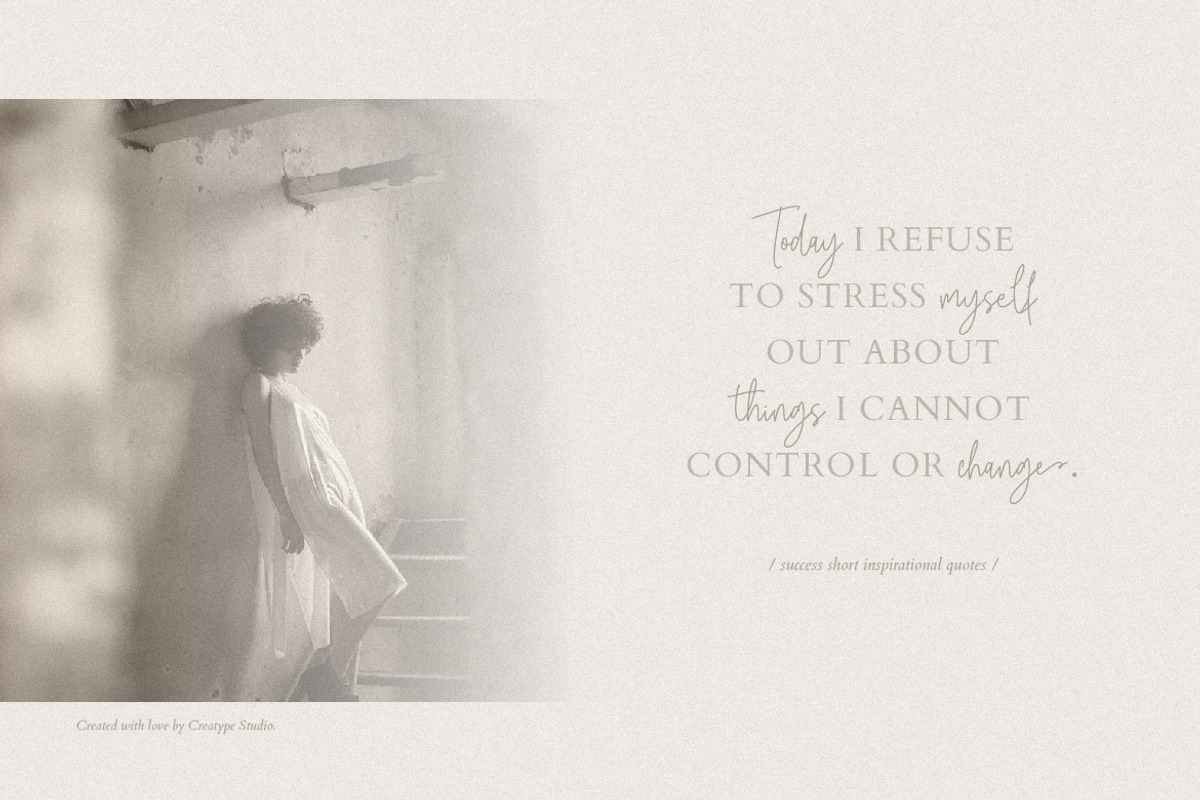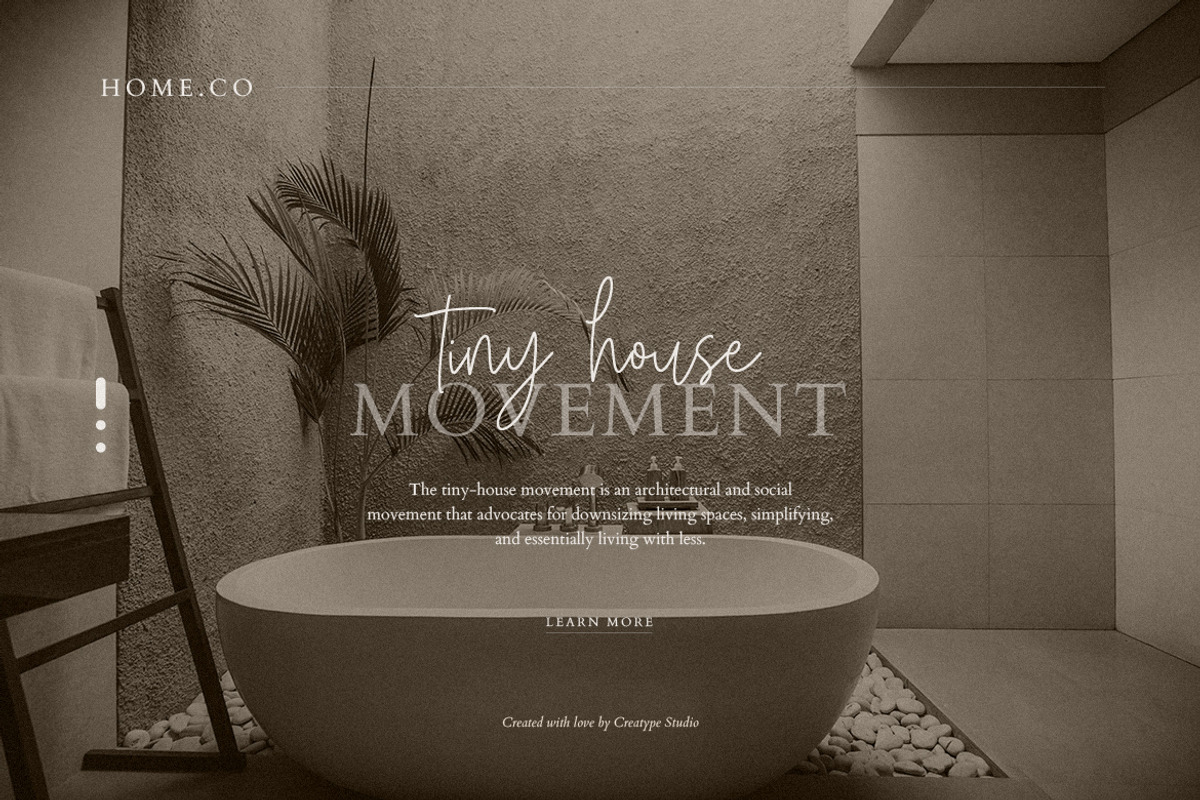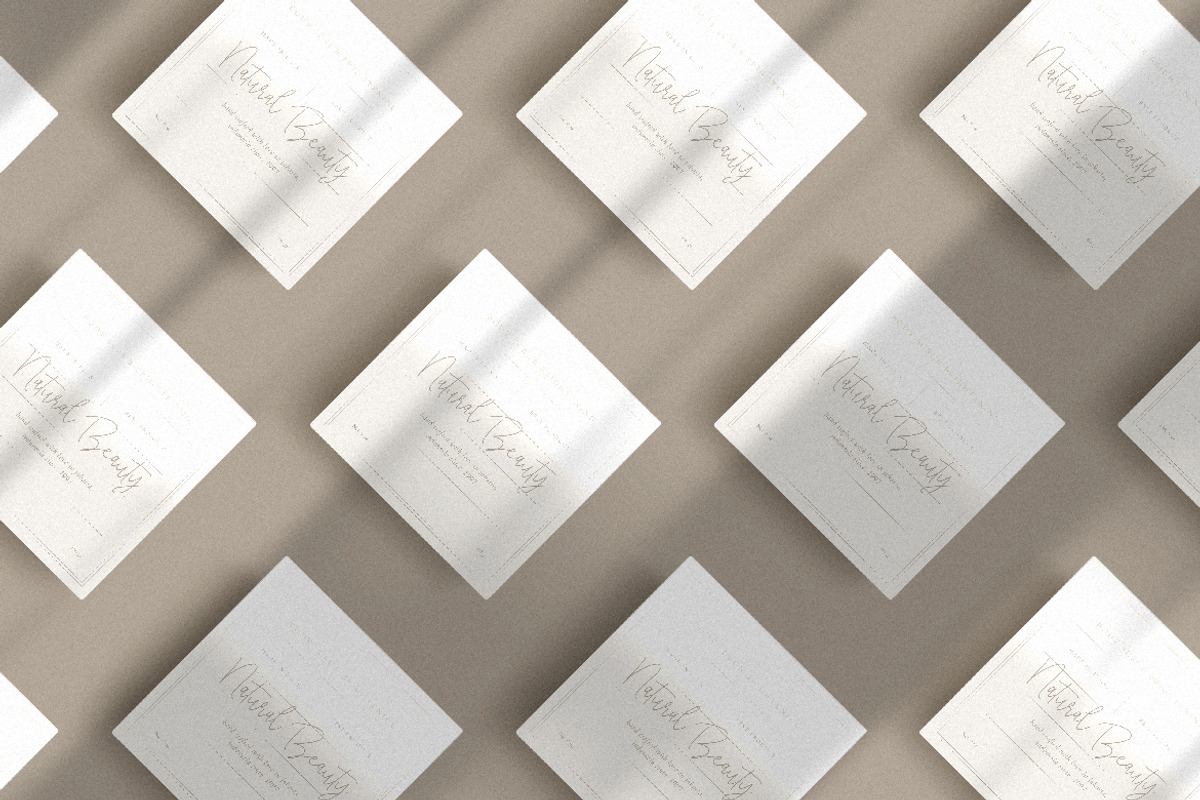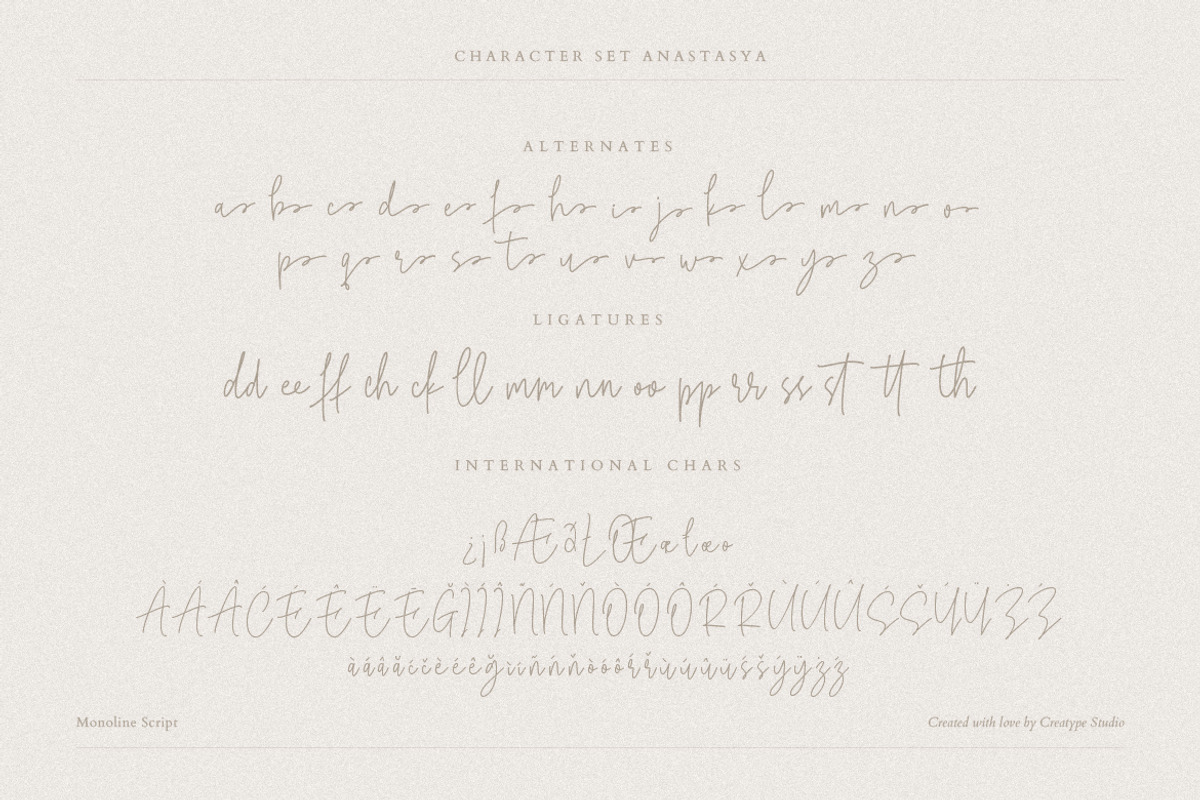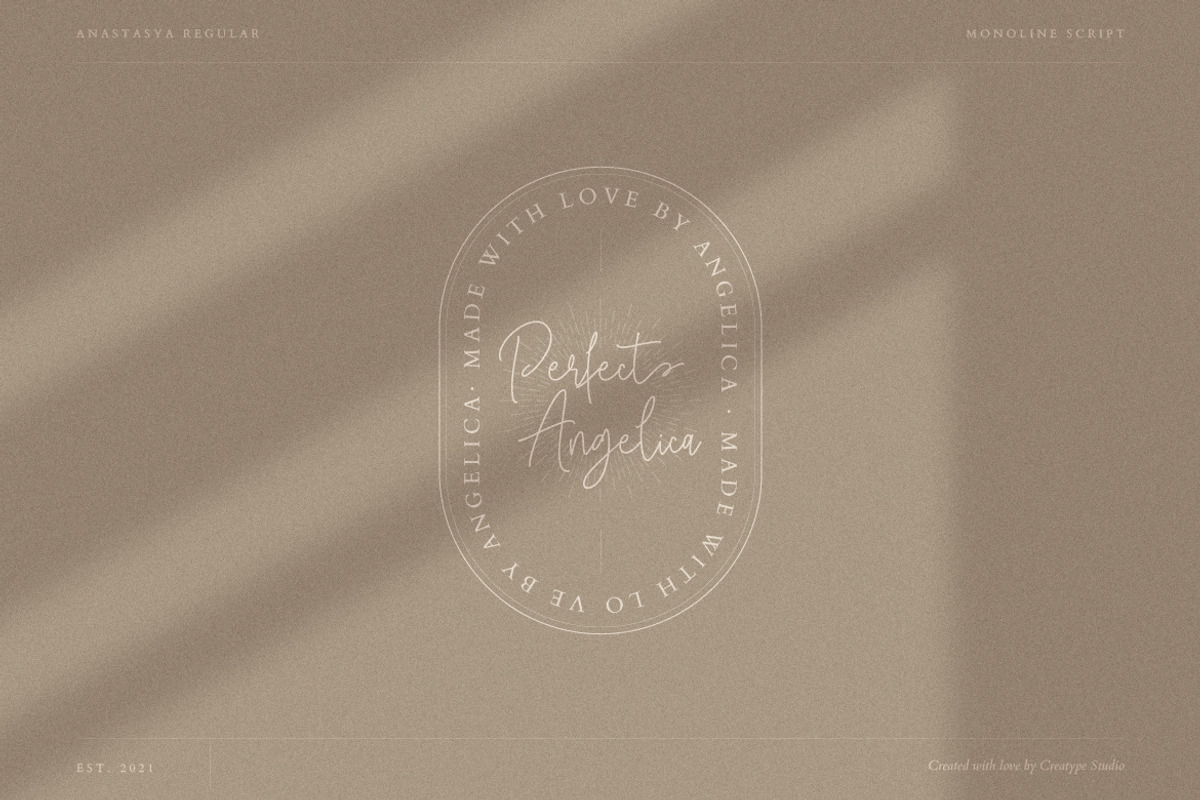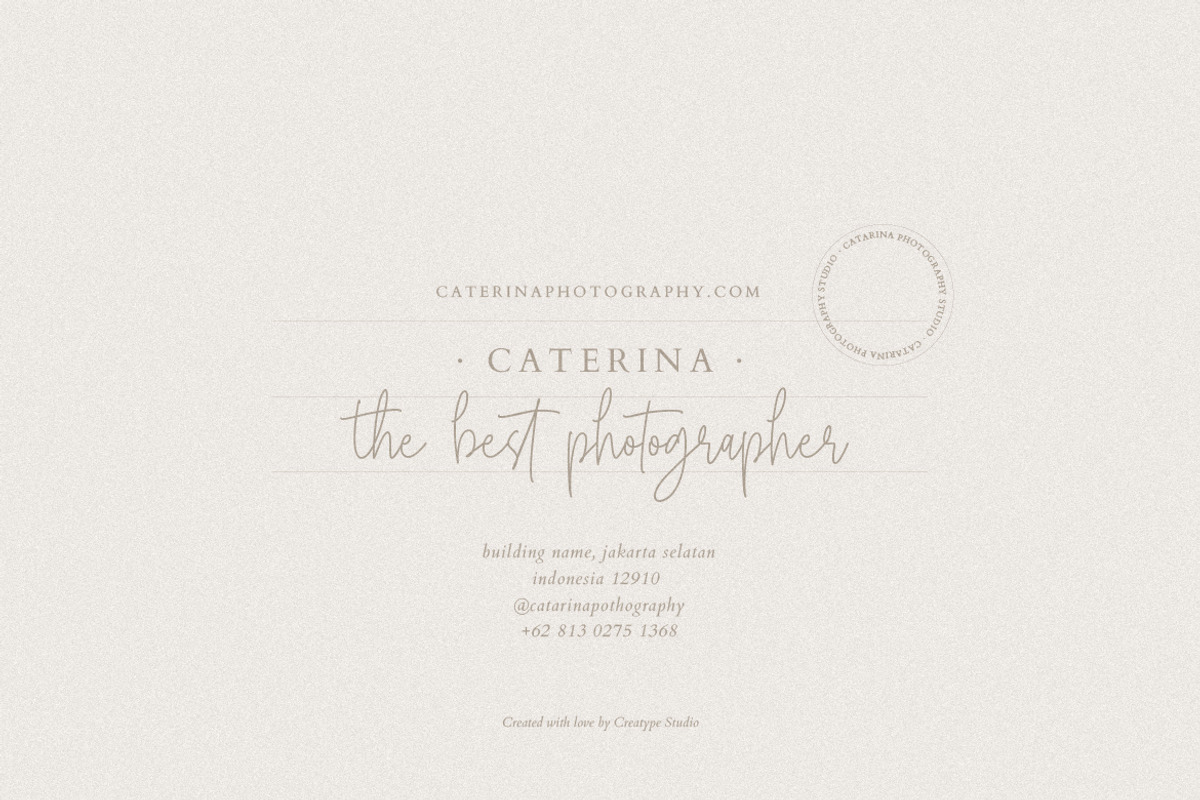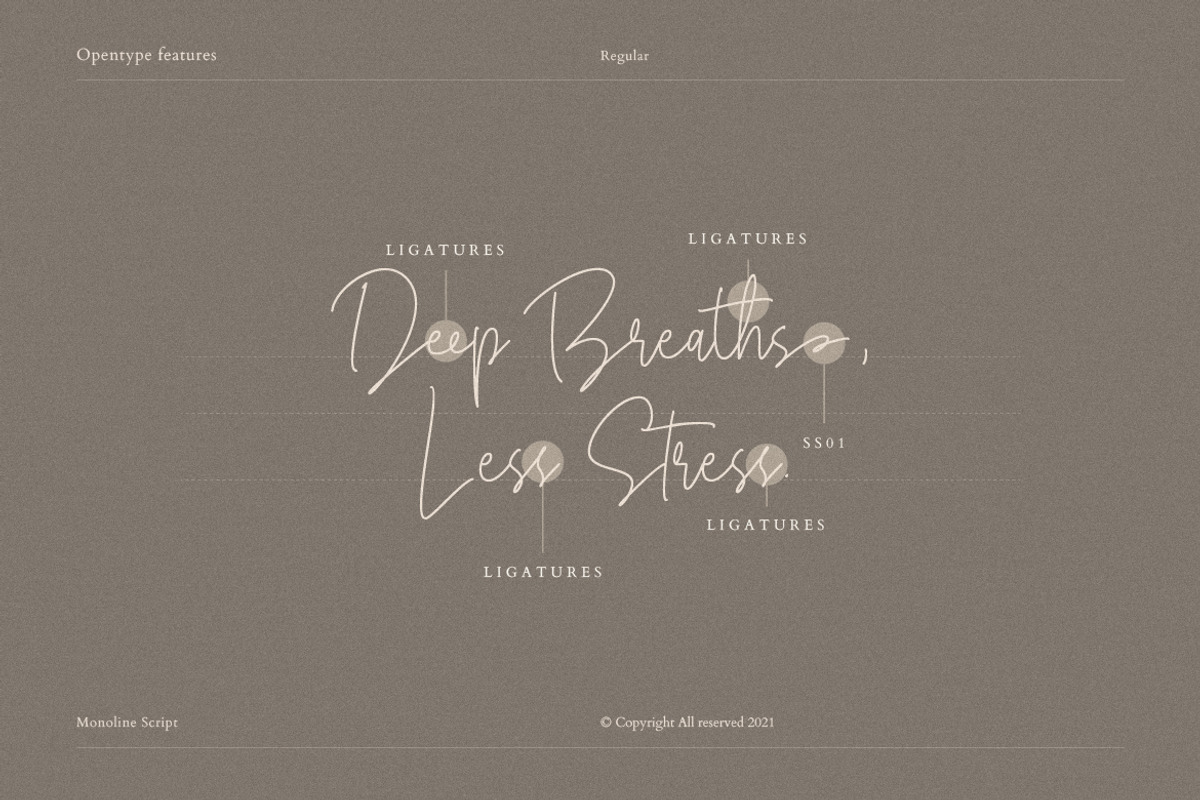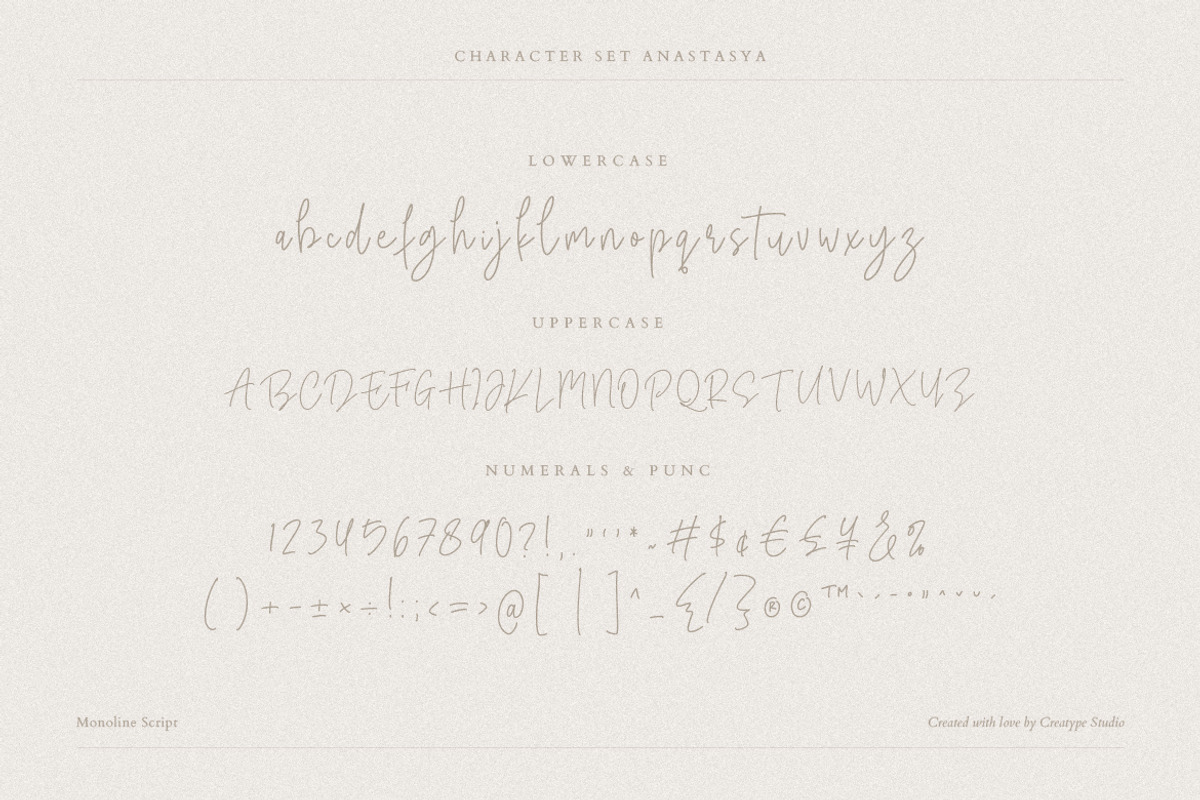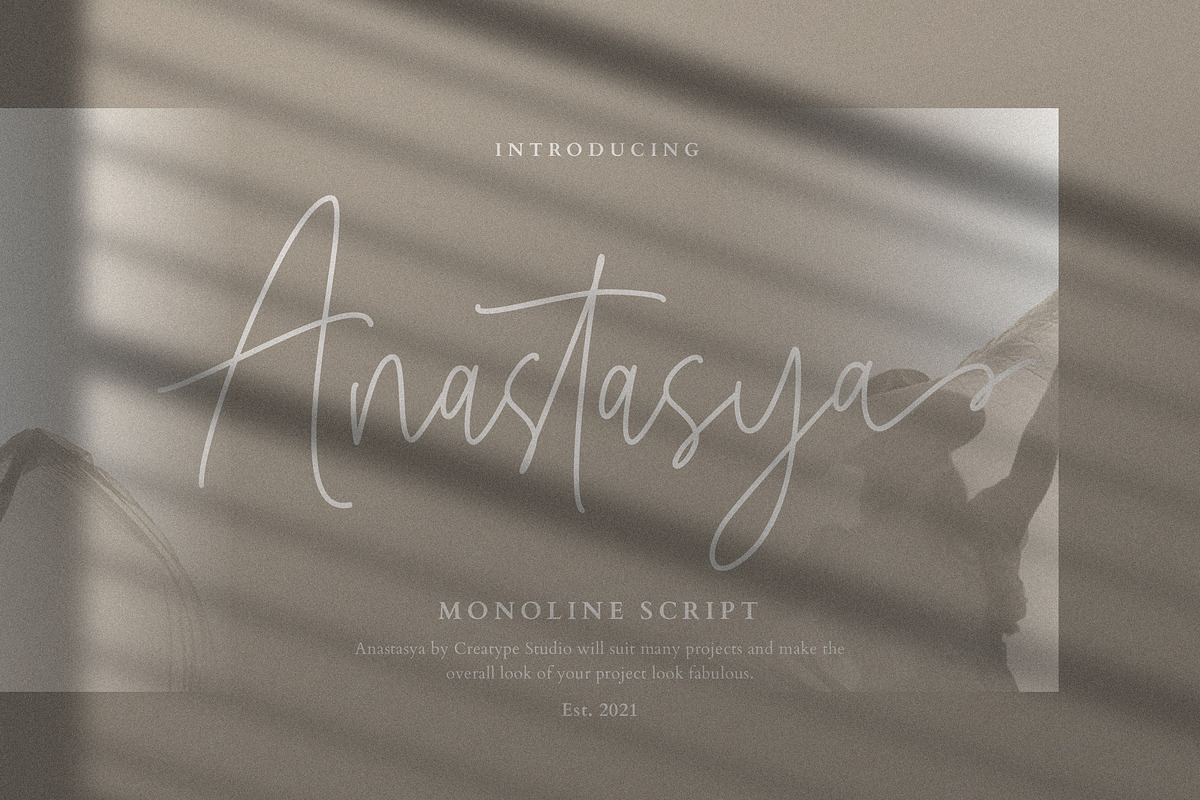
Anastasya Monoline Script
Anastasya is a Monoline Script typeface created by skilled hands to make this font look extraordinary. This font is suitable for all your big projects, making your project look fabulous.
Anastasya is perfect for branding projects, logo, wedding designs, social media posts, advertisements, product packaging, product designs, label, photography, watermark, invitation, stationery and any projects that need handwriting taste.
- Ligature & Alternate